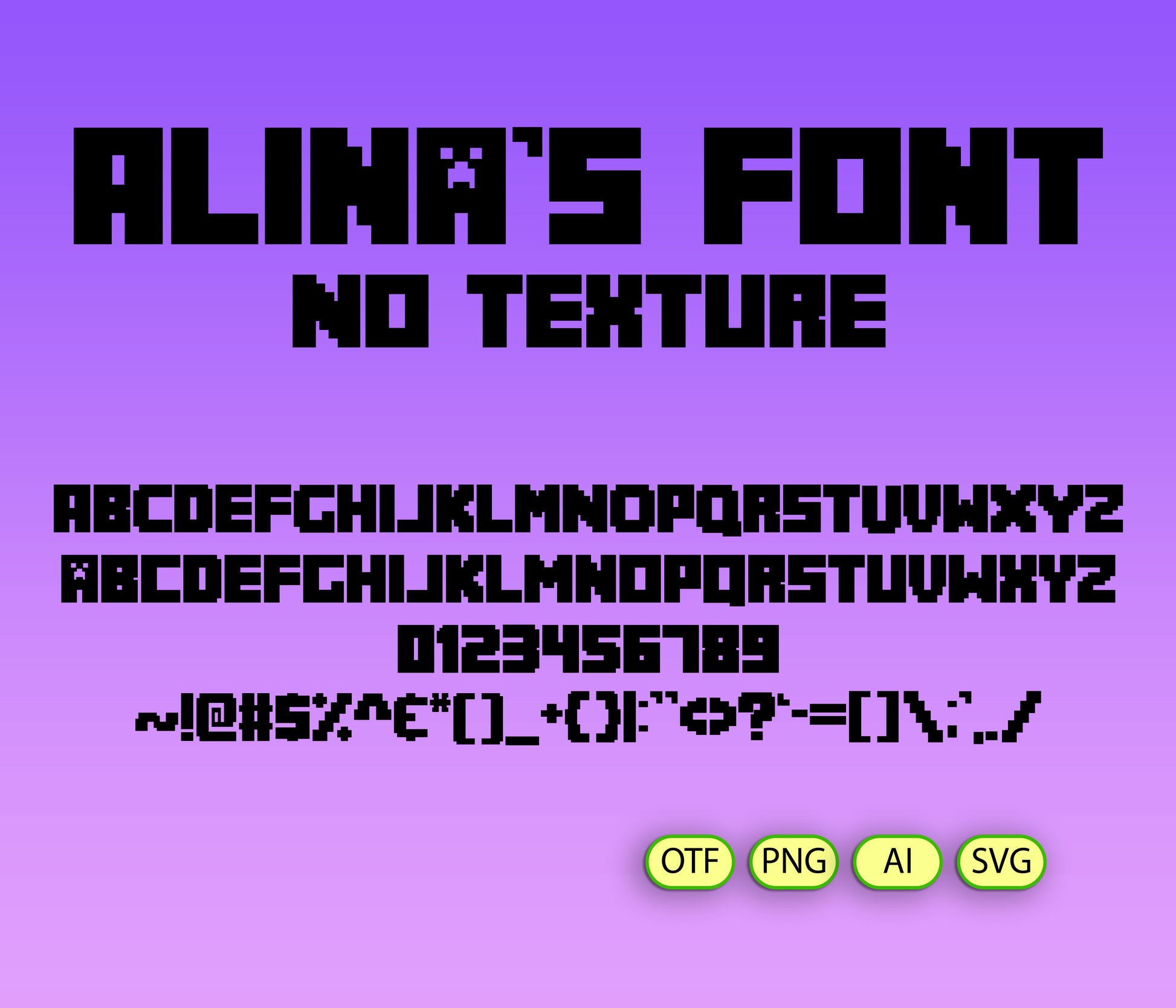
BlockCraft Font
Build Your Creative World with the BlockCraft Font
Immerse yourself in the pixelated universe of BlockCraft with our BlockCraft-inspired font, designed to capture the essence of a groundbreaking sandbox game. Perfect for fans, game developers, and content creators, this font brings the iconic, blocky aesthetic of BlockCraft to your projects, enhancing them with a sense of creativity and exploration.
Our BlockCraft font features squared, pixel-like characters that mirror the game's unique visual style. It’s crafted to embody the simplicity and accessibility of BlockCraft, making it ideal for a broad array of applications:
1. Gaming Content: Enhance guides, tutorials, or promotional materials for BlockCraft or similar games.
2. Educational Projects: Use in STEM-related educational content to engage students in a familiar format.
3. Digital Media: Create standout titles and headers for gaming blogs, video channels, or social media.
4. Event Promotion: Design invitations and signage for gaming tournaments or BlockCraft-themed parties.
5. Merchandising: Develop appealing apparel, stationery, and accessories for fans of the game.
Our BlockCraft font not only pays homage to the beloved game but also inspires you to bring the creative and exploratory spirit of BlockCraft into your design projects. Whether you’re creating promotional materials, customizing merchandise, or adding a playful touch to educational content, this font helps you convey messages with the fun and imaginative flair that is synonymous with BlockCraft. Ready to start building your next creative adventure? This font is the perfect tool to help you construct your vision, block by block.